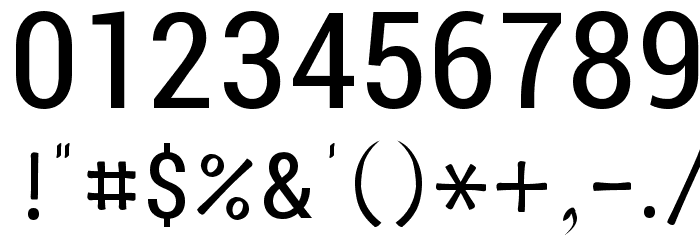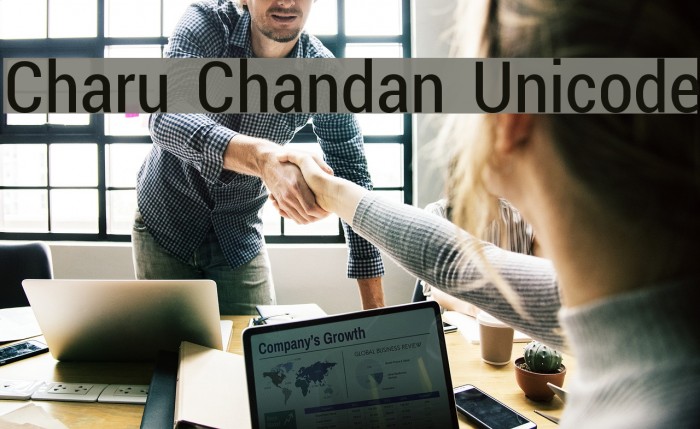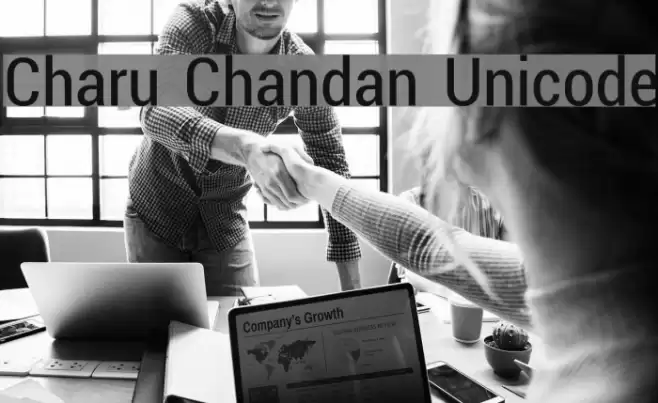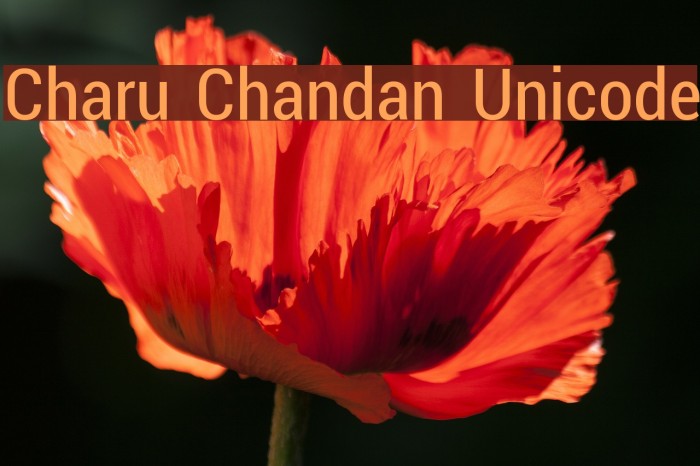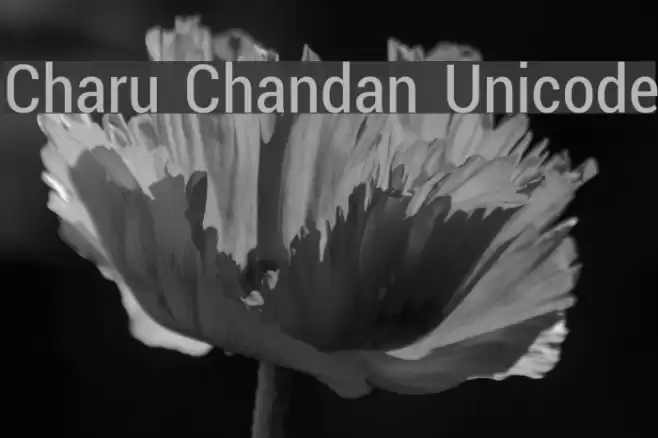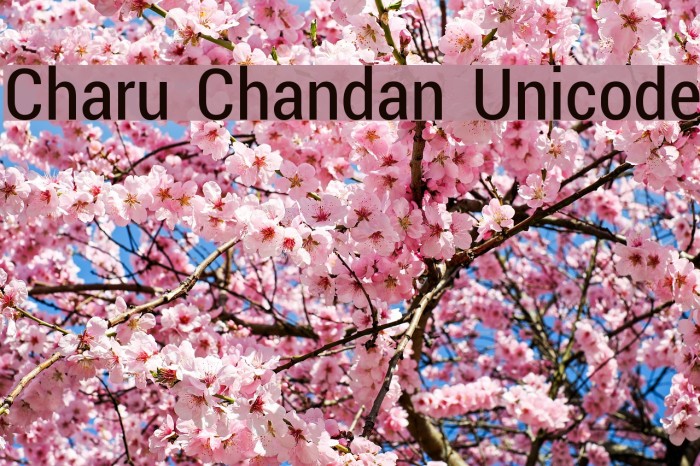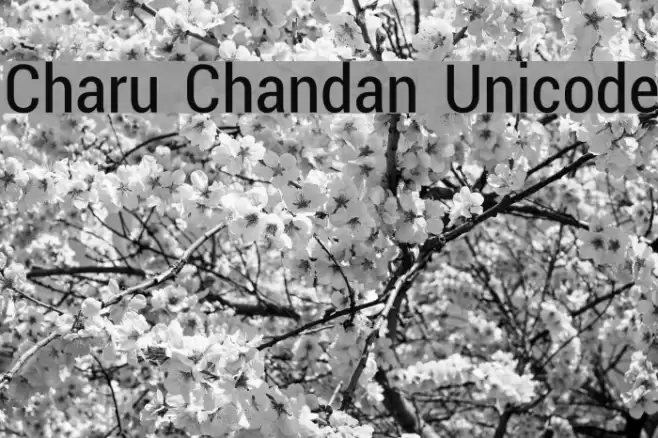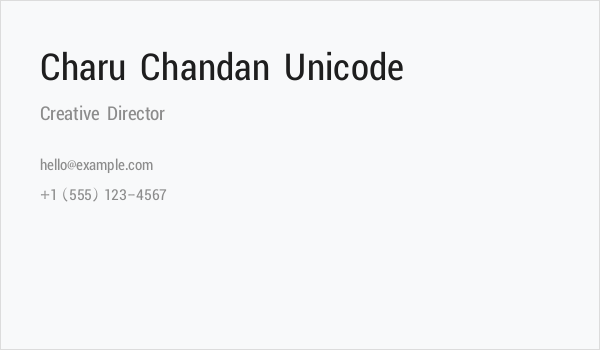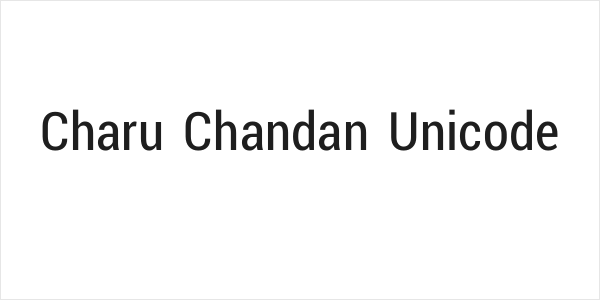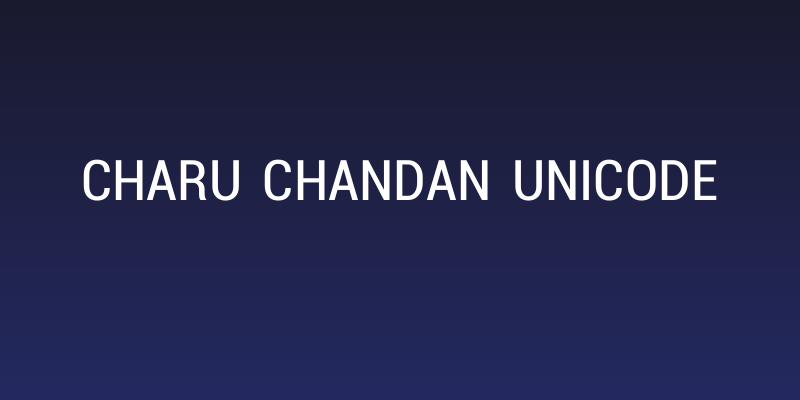
Charu Chandan Unicode Font
Charu Chandan Unicode Description
This font presents a clean and modern sans-serif style, characterized by its simplicity and clarity. The uppercase and lowercase letters are well-proportioned, with a consistent stroke width that ensures readability. The numerals are straightforward, matching the overall aesthetic of the alphabetic characters. Special characters are included, maintaining the same design ethos. The font's design is versatile, suitable for a wide range of applications, from digital to print media. Its straightforward appearance makes it ideal for conveying information clearly and effectively.